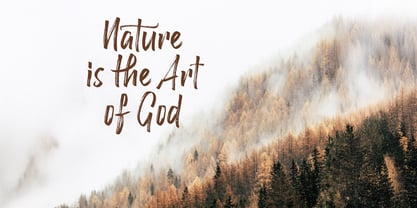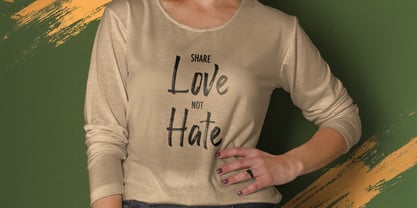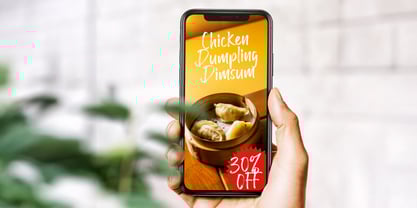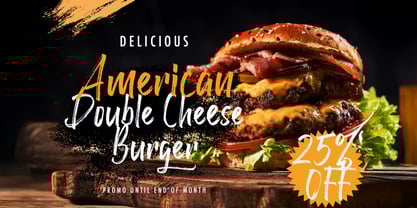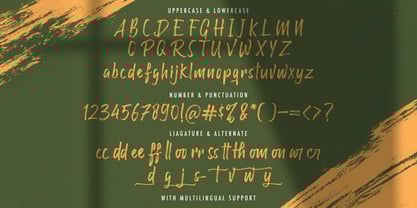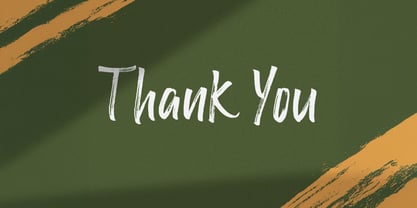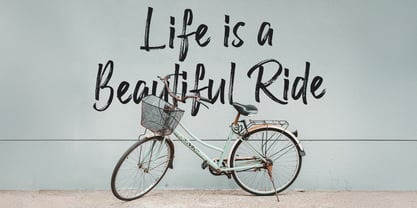
Raffles Bryant
by Stringlabs Creative Studio
The Raffles Bryant Font Family was designed by Virgiawan Listanto and published by Stringlabs Creative Studio. Raffles Bryant contains 1 styles.
Raffles Bryant is a rugged and expressive brush font with a handcrafted texture that adds raw energy and bold personality to your designs. Its dynamic strokes and gritty details create a powerful, authentic look perfect for projects that need a punch of attitude and style.
Designers: Virgiawan Listanto
Publisher: Stringlabs Creative Studio
Foundry: Stringlabs Creative Studio
Design Owner: Stringlabs Creative Studio